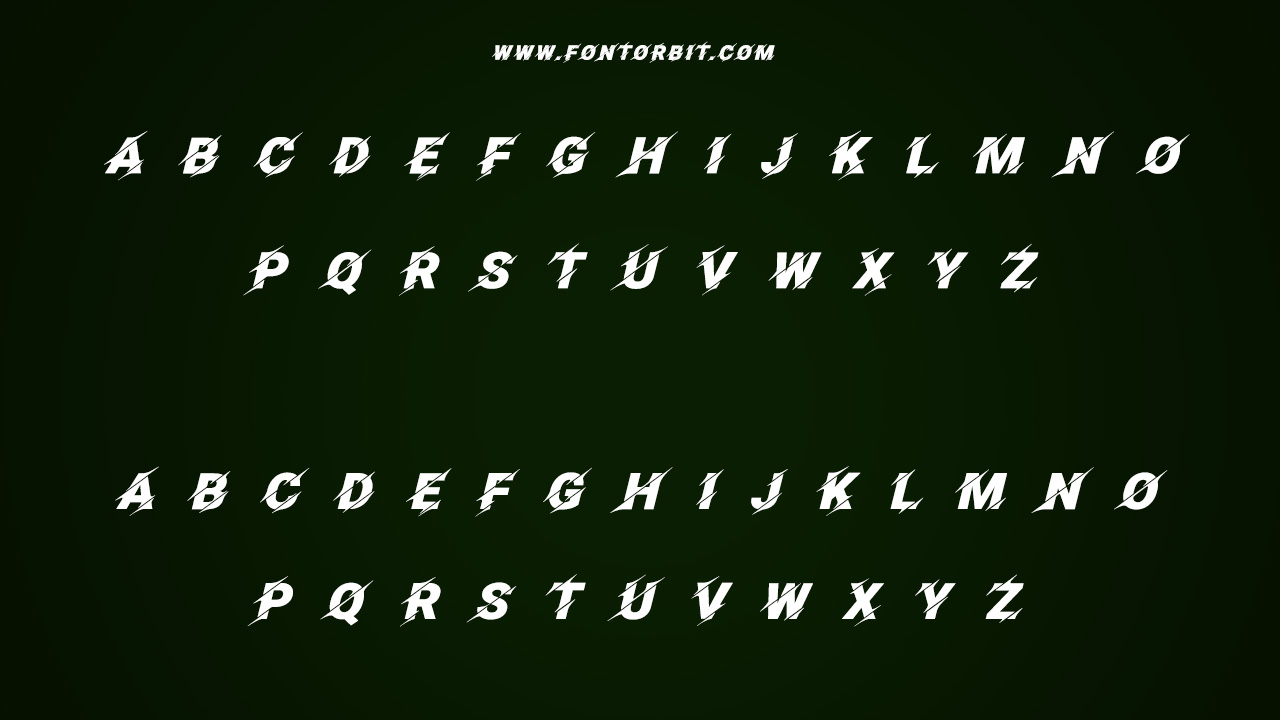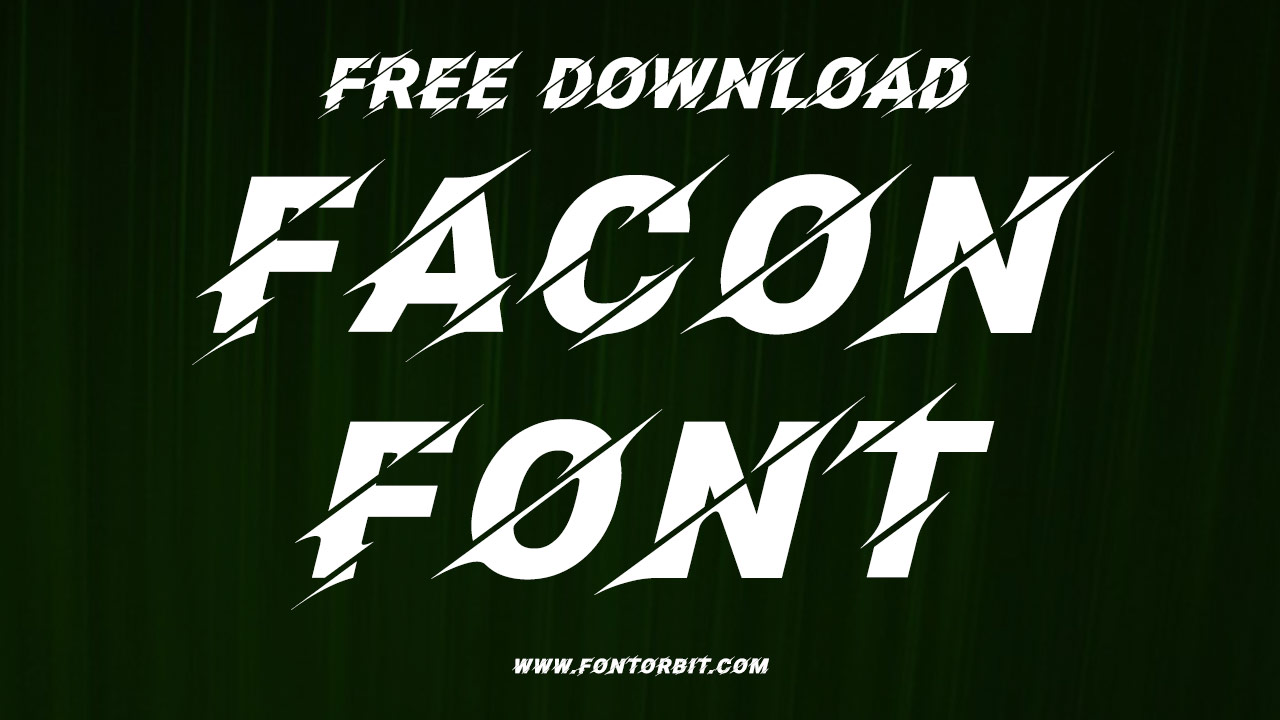
The Facon Font, designed by Alejo Bergmann, is a bold display typeface with distinctive diagonal cuts that add a dynamic edge to your designs. With its all-caps letters, numerals, and symbols, Facon is perfect for a range of display purposes, including logotypes, badges, labels, headlines, and posters.
The Facon Font Family
Facon Bold Italic
This bold italic typeface is ideal for large-size applications, providing a striking presence in any design project. Its unique diagonal cuts and bold style make it suitable for creating high-visibility designs with a modern, energetic feel.
Notable Uses Of This Font
Facon Font excels in producing eye-catching logotypes, distinctive headlines, and stylish posters. Its bold, dynamic design is perfect for making a strong visual impact in various display contexts.
With its diagonal cuts and striking design, Facon Font offers a unique blend of boldness and modernity. Its versatility and compatibility across different platforms make it an excellent choice for impactful display projects and creative design work.
1.What Is The Facon Font?
Facon is a bold display typeface by Alejo Bergmann. It features diagonal cuts for a dynamic, modern look and is designed for high-impact use in various display applications.
2.How To Choose The Right Style For Facon Font?
Facon is available in a single Bold Italic style, ideal for making strong visual statements in headlines, logos, and other display uses.
3.What Are The Key Features Of The Facon Font?
Facon features bold, diagonal cuts and a bold italic style, making it suitable for creating high-visibility designs and dynamic visuals.
4.How To Use The Facon Font In Design?
Use Facon for impactful logotypes, striking headlines, and stylish posters to achieve a bold, modern look.